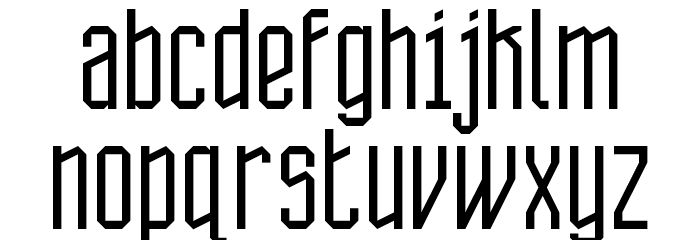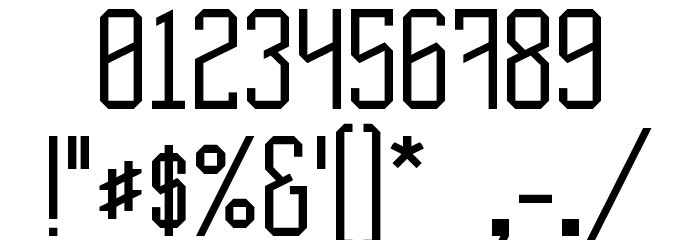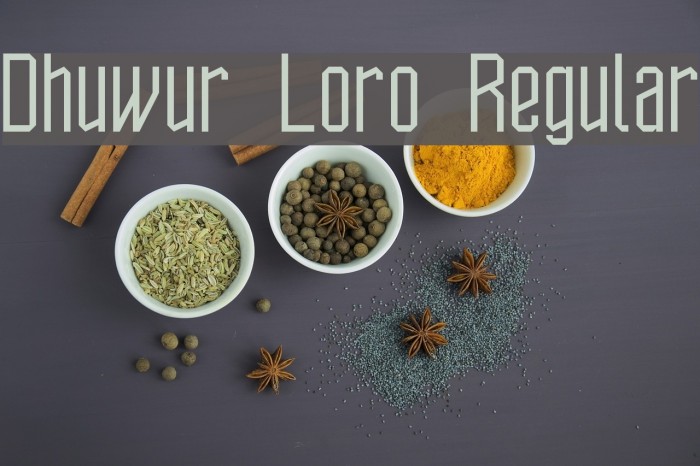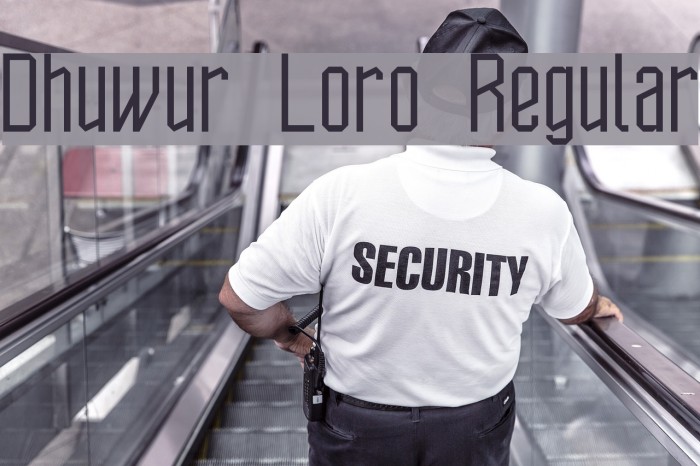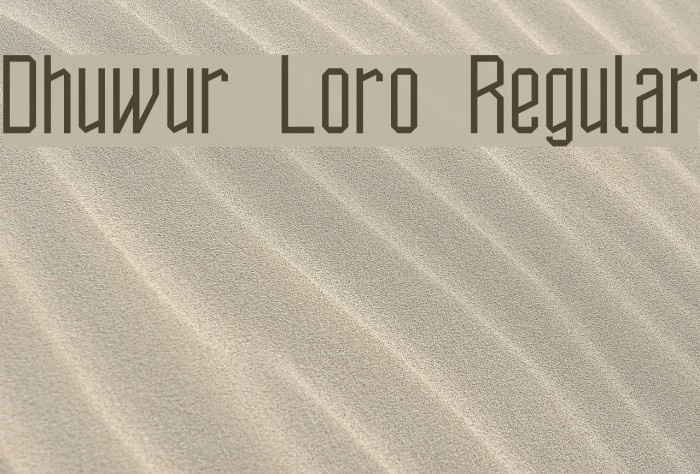
Dhuwur Loro Regular Font
This font features a geometric and angular design, characterized by its tall, narrow letterforms and sharp edges. The uppercase and lowercase letters maintain a consistent height, giving it a uniform appearance. The numerals and special characters follow the same angular style, ensuring a cohesive look across all glyphs. The font's structure is reminiscent of architectural or industrial design, with a modern twist that makes it suitable for contemporary projects. Its clean lines and distinct shapes make it highly legible, even at smaller sizes, while the unique style adds a touch of sophistication and modernity.
A geometric, angular font with tall, narrow letterforms and sharp edges.
- Proposed Projects: Ideal for branding, posters, modern web design, and architectural publications.